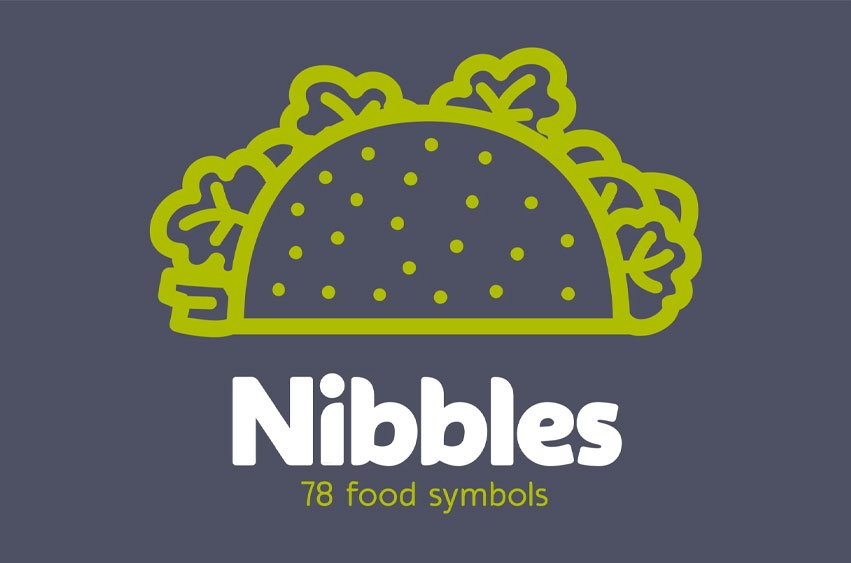
Nibbles Font is a linear dingbat typeface inspired by food and food trucks. It features a variety of symbols, including burgers, pancakes, desserts, food trucks, and toilet signs, making it perfect for all your culinary design needs. To make it easy to use, each pictogram can be accessed through its glyph placement or by simply typing the name of the food item.
For instance, if you type “burger,” the burger pictogram will appear instantly! With its extensive range of symbols and user-friendly application, Nibbles is ideal for branding, menus, editorial layouts, posters, and any food-related projects.